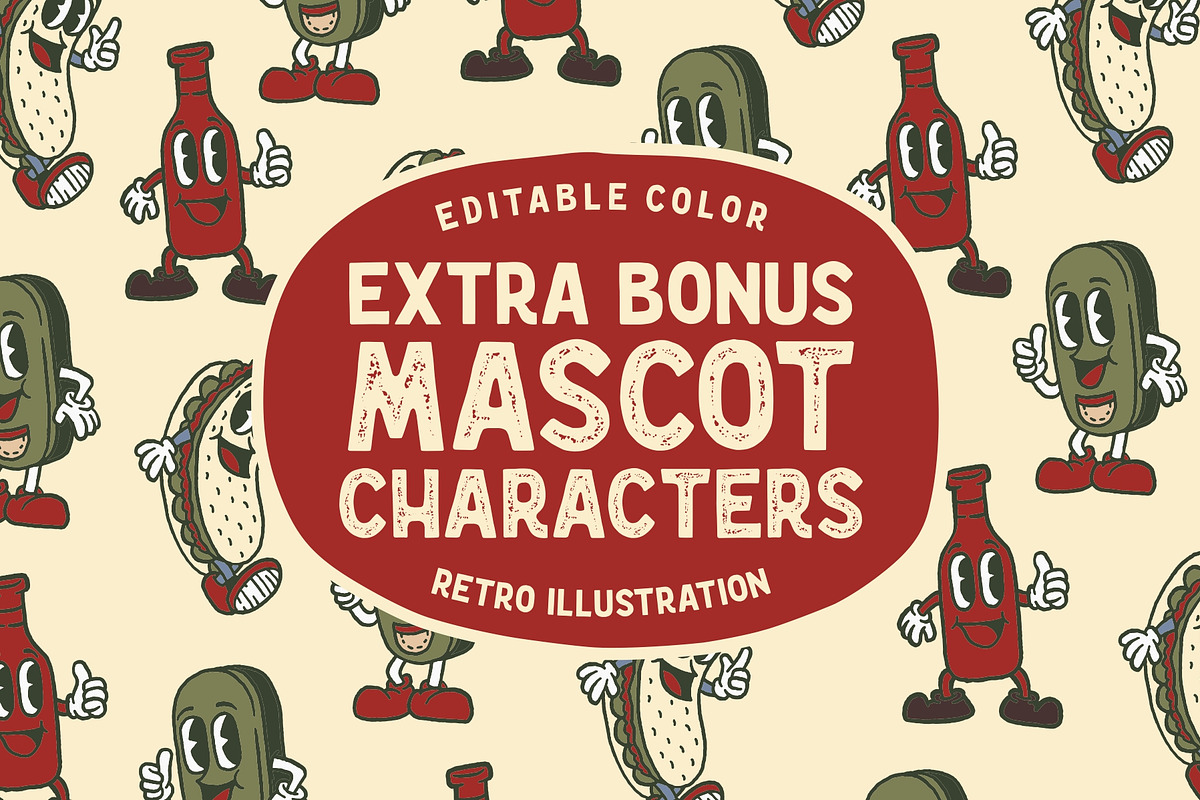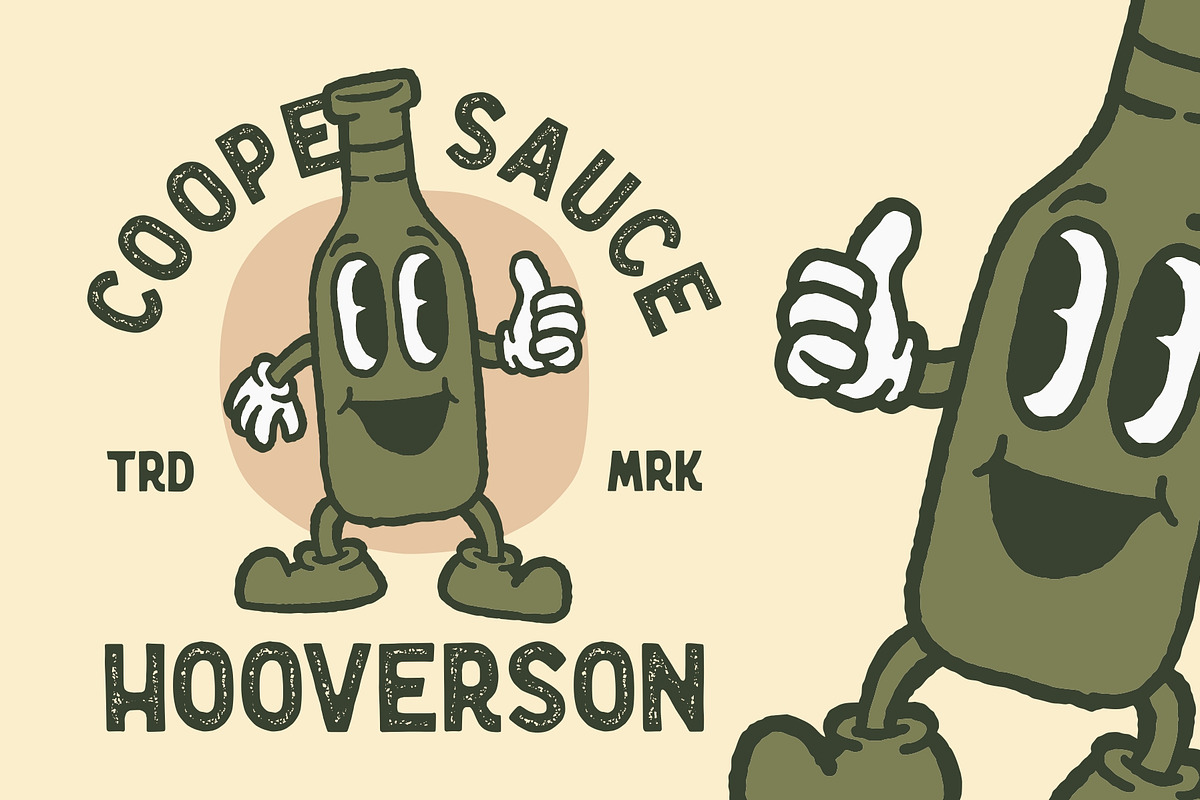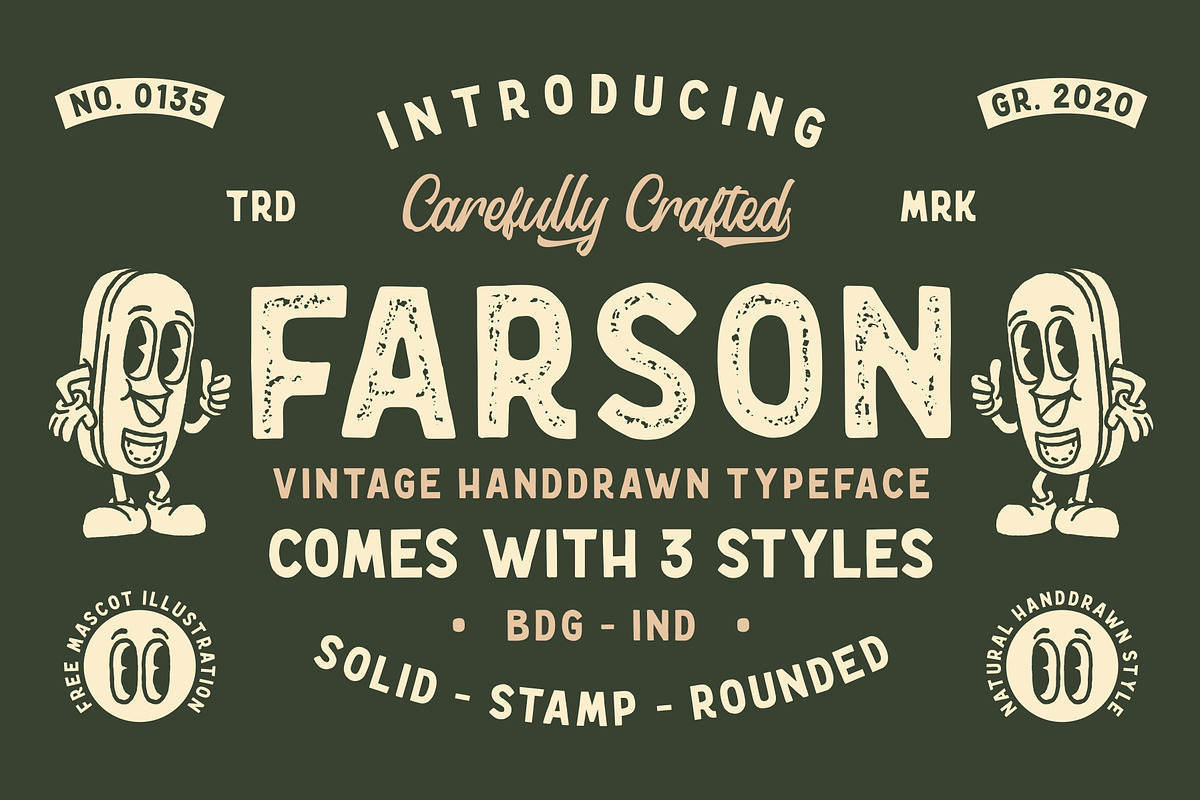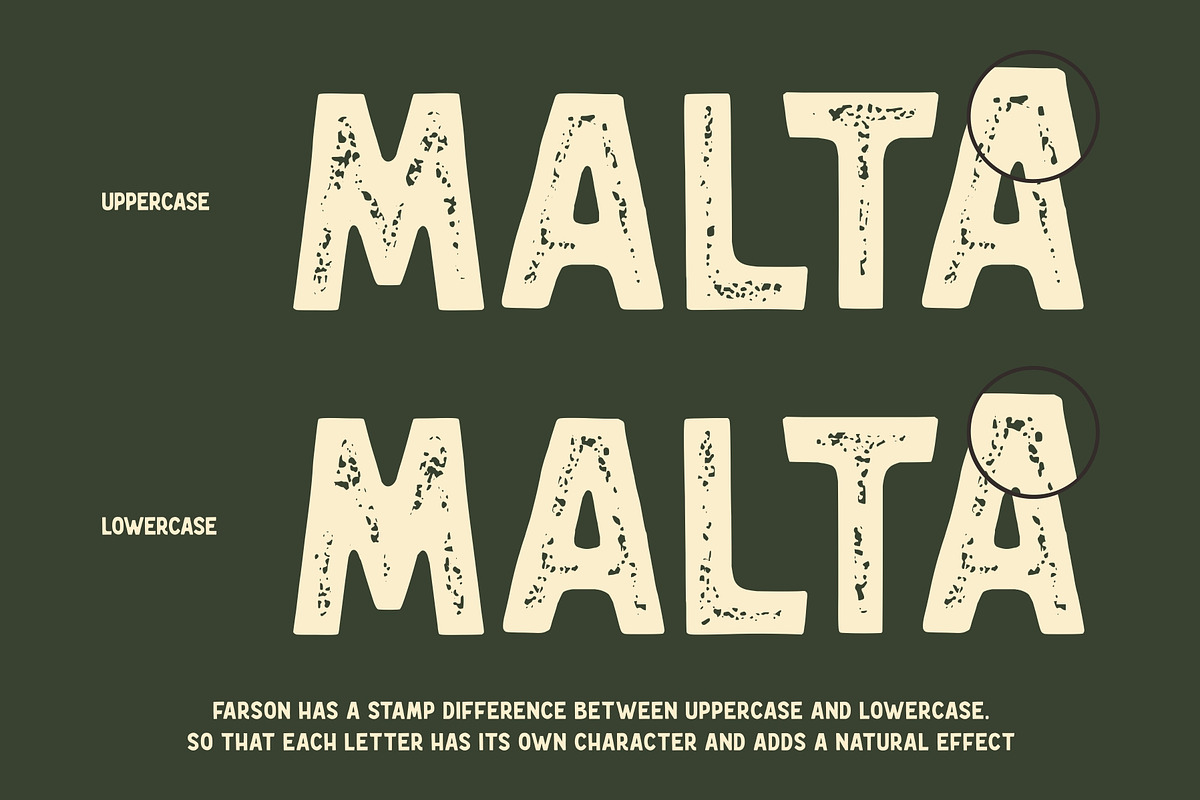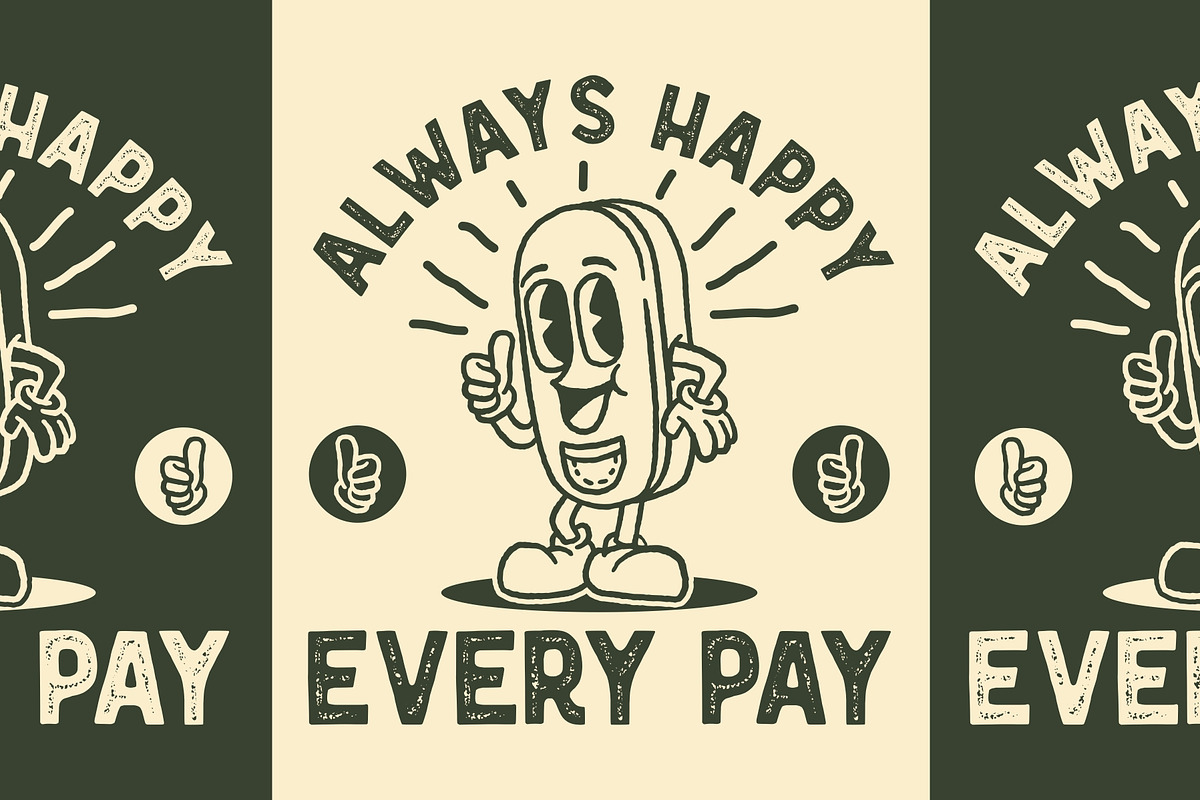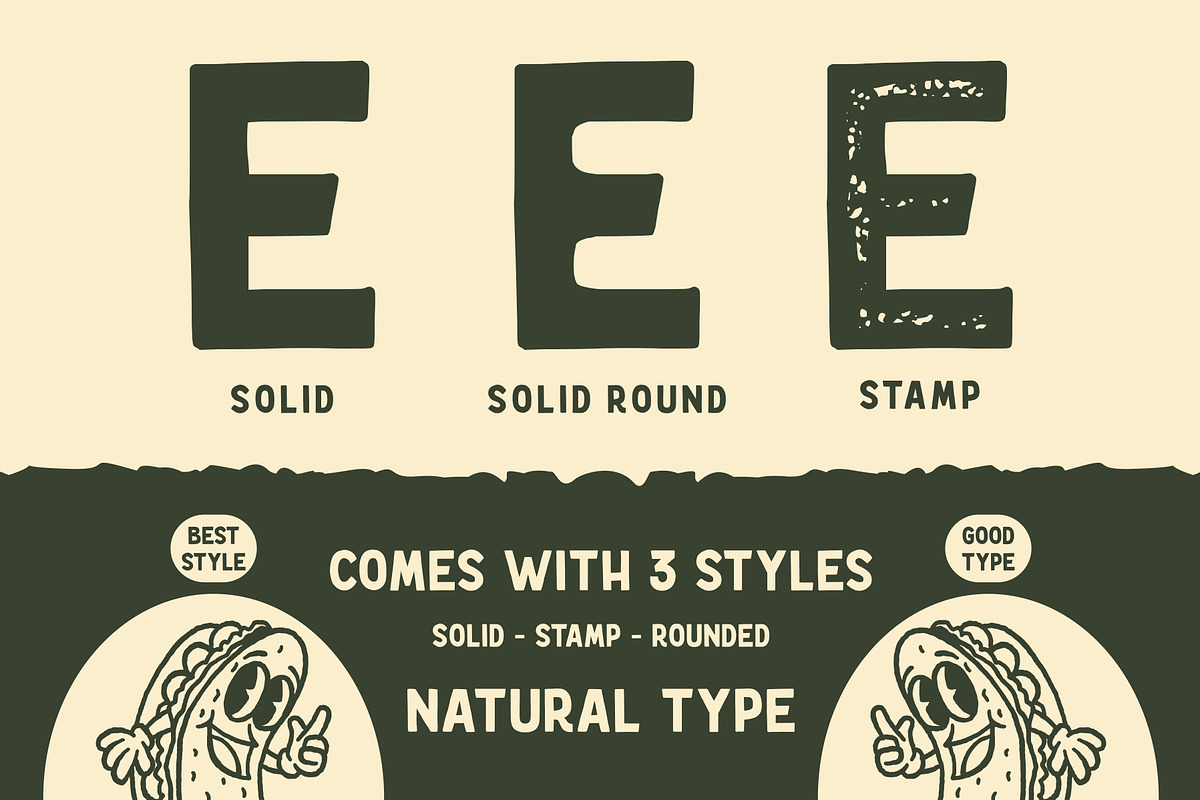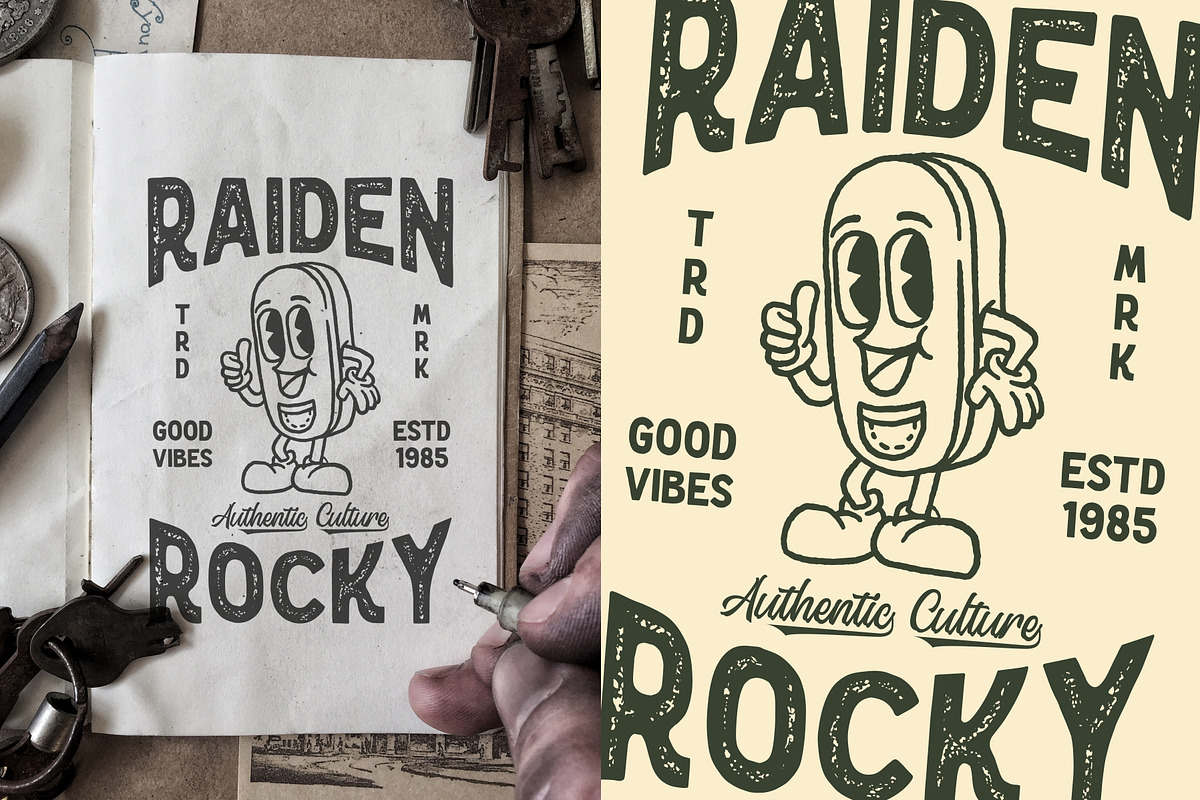
Farson - Vintage Typeface
Proudly Present Farson - Vintage Typeface
Farson born from an inspiring vintage display. This font gives a feel of a vintage, classic, old, and based on handmade. Already PUA Encoded and I think this font is perfect for people looking for vintage aesthetic or logo-type. Suitable for any graphic designs such as branding materials, t-shirt, print, business cards, logo, poster, t-shirt, photography, quotes .etc.
- All glyphs with Caps styles
- Multilingual characters (support for 14 languages): Afrikaans Albanian Danish Dutch English Estonian Finnish French Italian Norwegian Portuguese Spanisch Swedish Zulu